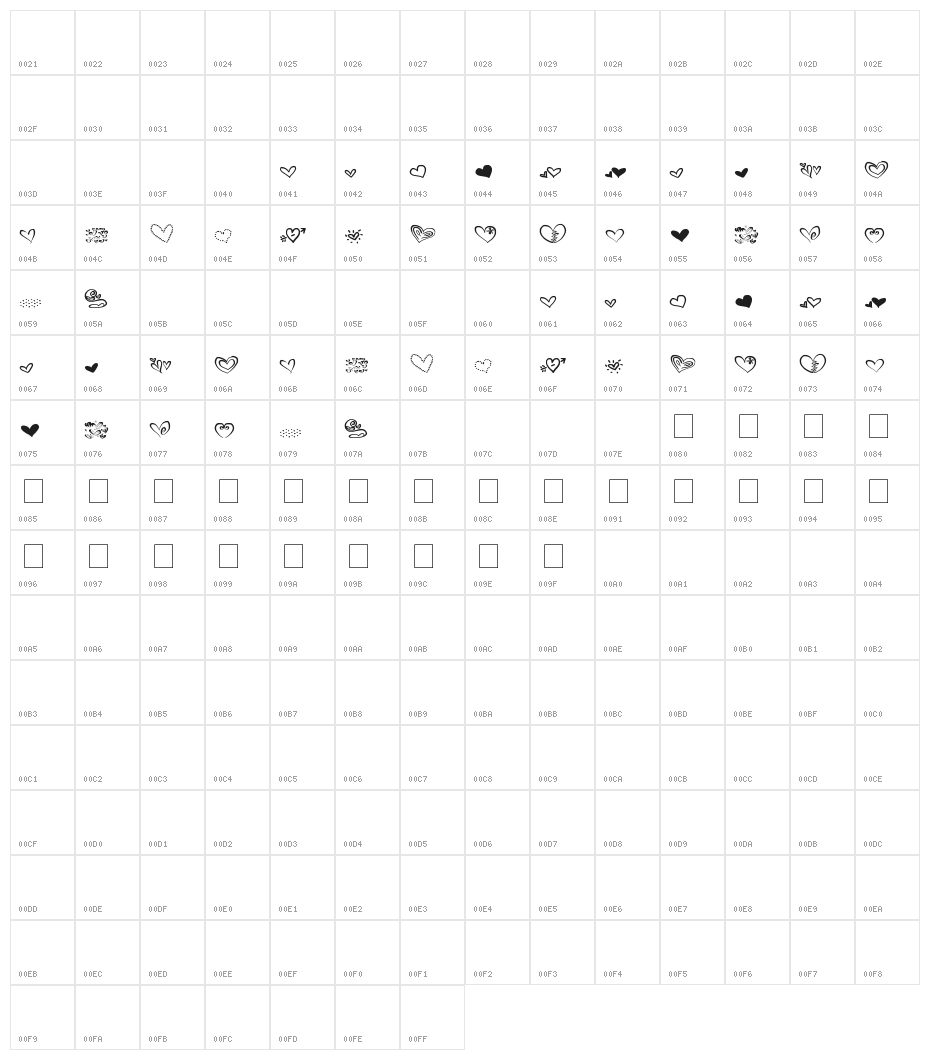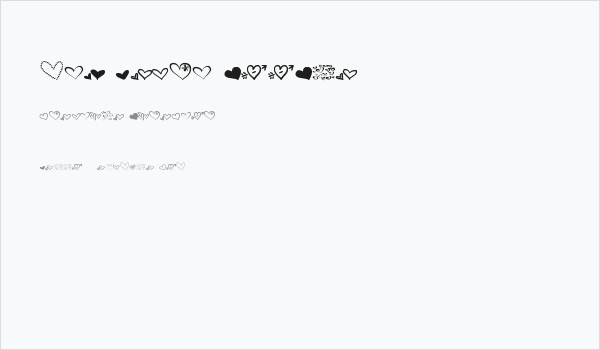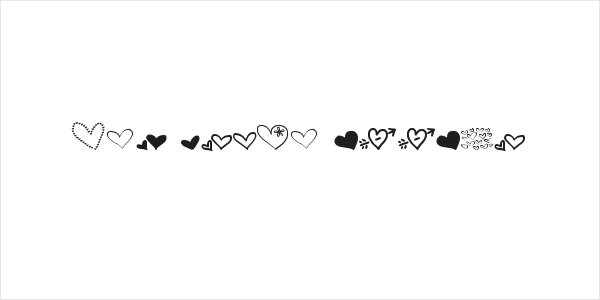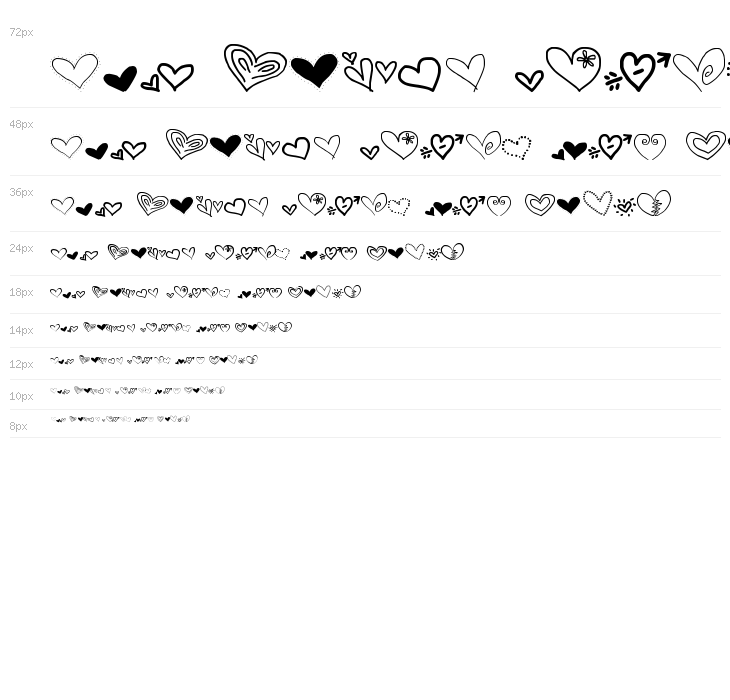
MTF Heart Doodle Font
MTF Heart Doodle Description
A playful, hand-drawn decorative font featuring a variety of whimsical heart doodles, including solid, outlined, broken, and patterned hearts, as well as heart-themed icons and flourishes. The style is informal and sketch-like, with varying line thickness and a casual, fun appearance.
| Overall Style | Decorative, Playful, Hand-drawn |
| Use Case | Logos, Headlines, Decorative elements |
| Proposed Projects | Valentine's Day cards, wedding invitations, scrapbooking, children's crafts, romantic event decor, playful branding. |